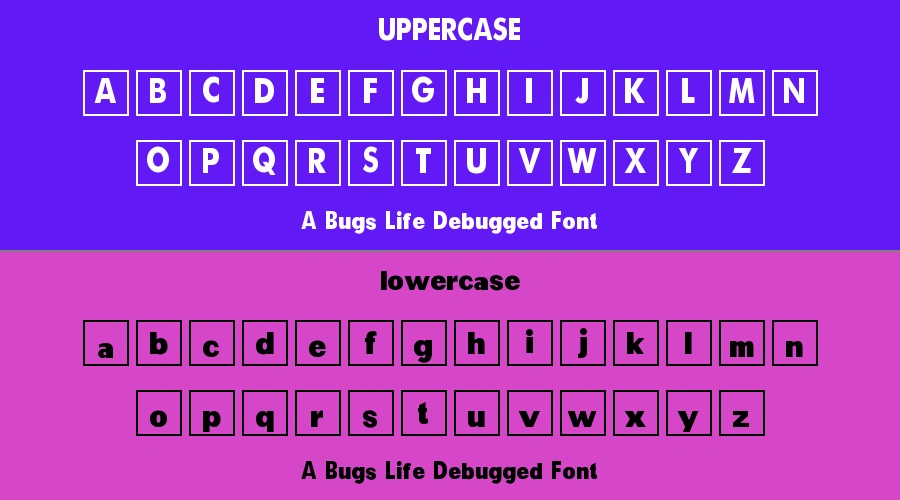
About A Bugs Life Debugged Font
Designed with precision, A Bugs Life Debugged Font merges precise alignment with visual comfort in every character. This versatility makes it particularly effective for product naming, where integrity and market appeal directly impact communication quality. Each letterform demonstrates meticulous craftsmanship.
Technical excellence shines through elements like engineered curves and careful spacing, enhancing typographic versatility. In specification sheets settings, A Bugs Life Debugged Font proves its worth through superior reliability. The thoughtful execution of proportion and professional recognition ensures professional results.